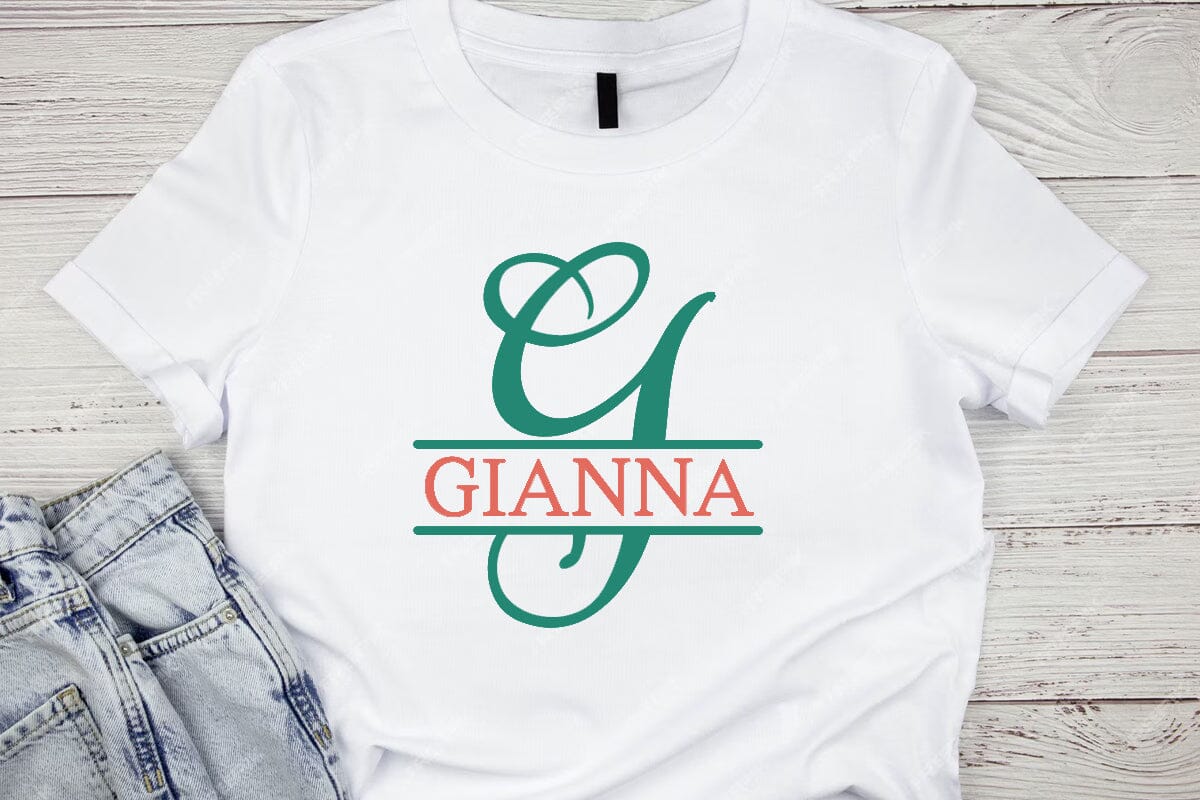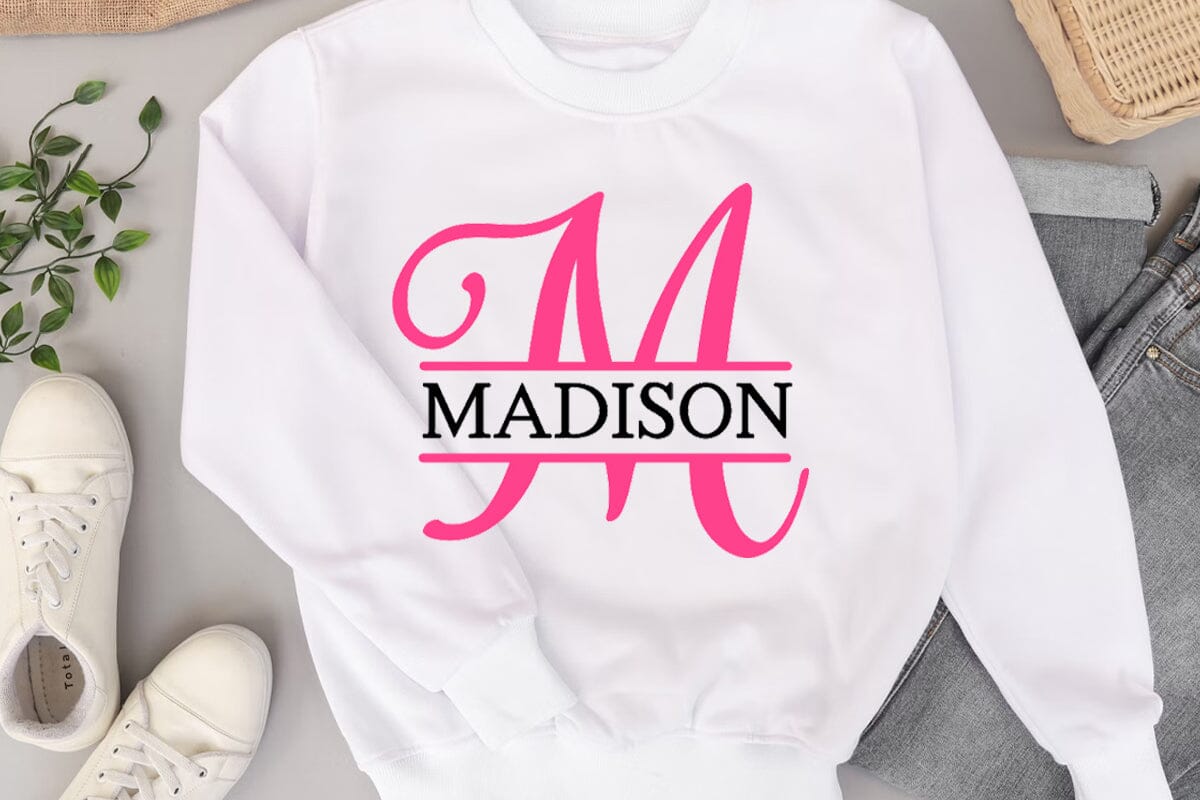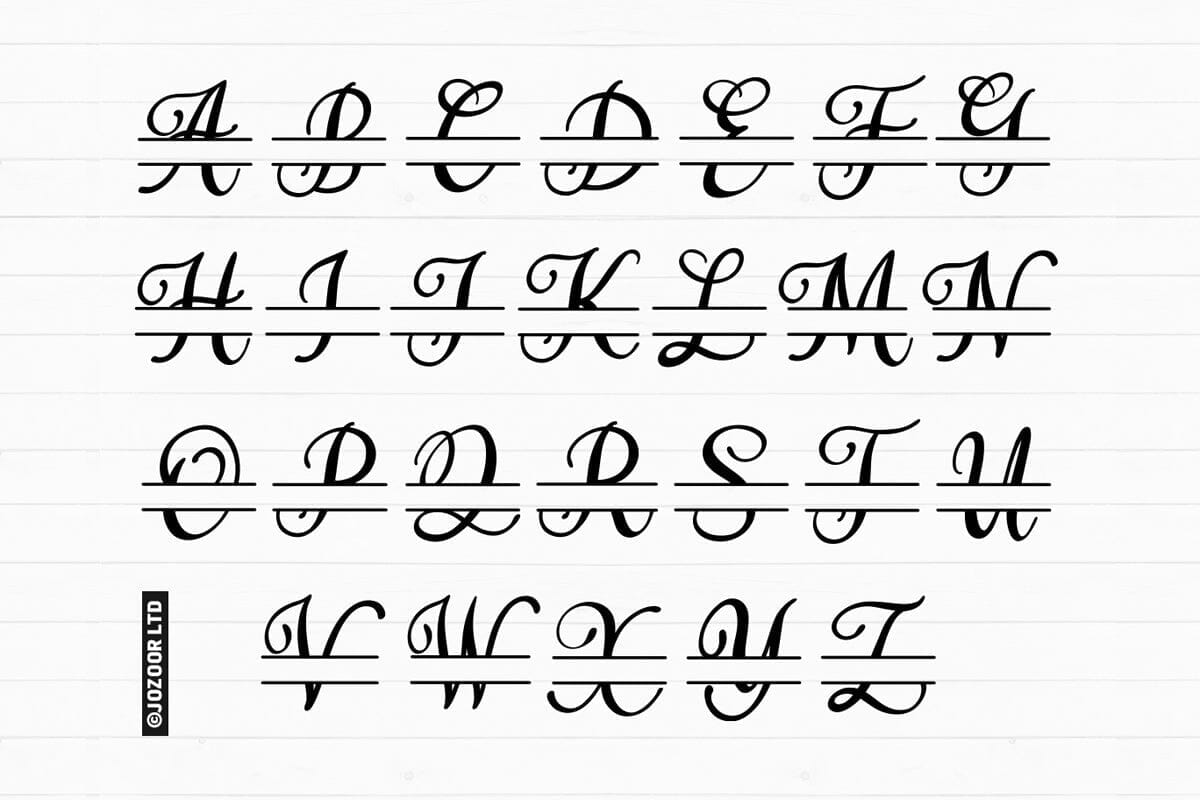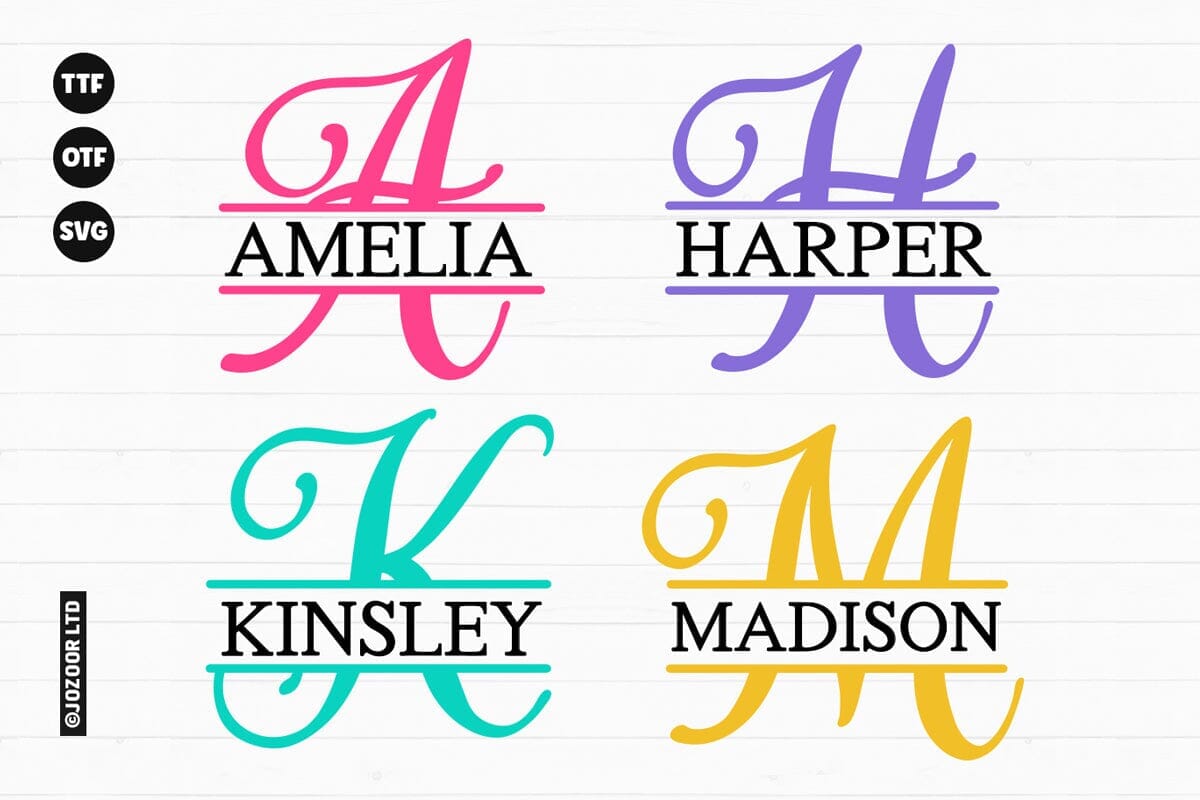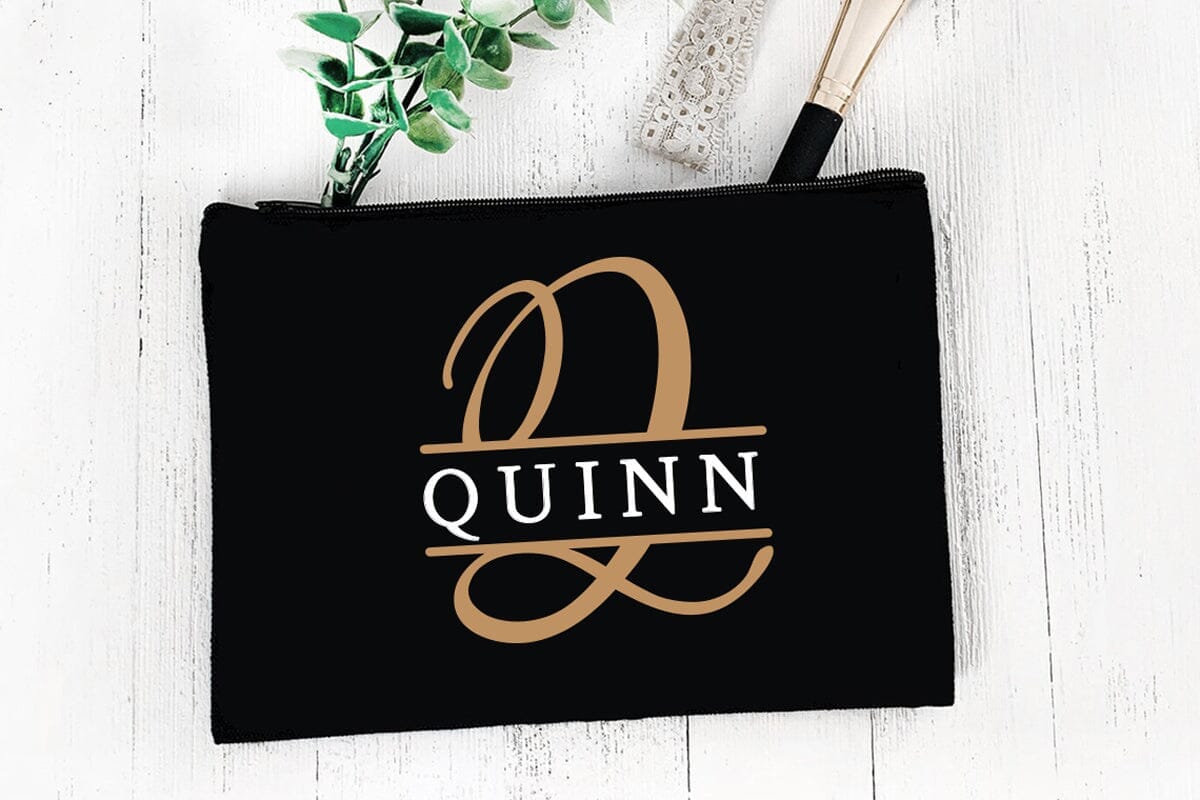
About Amelia – Split Monogram Script Font
Amelia is a cute split monogram decorative script font with an amazing look. Fall in love with its authentic feel and use it to create gorgeous wedding invitations, beautiful stationary art, eye-catching social media posts, and cute greeting cards. You will get: OTF Font File. TTF Font File. SVG Font File. User’s Guide PDF file. Hope you enjoy, and happy designing 🙂 вҷҘ JOZOOR